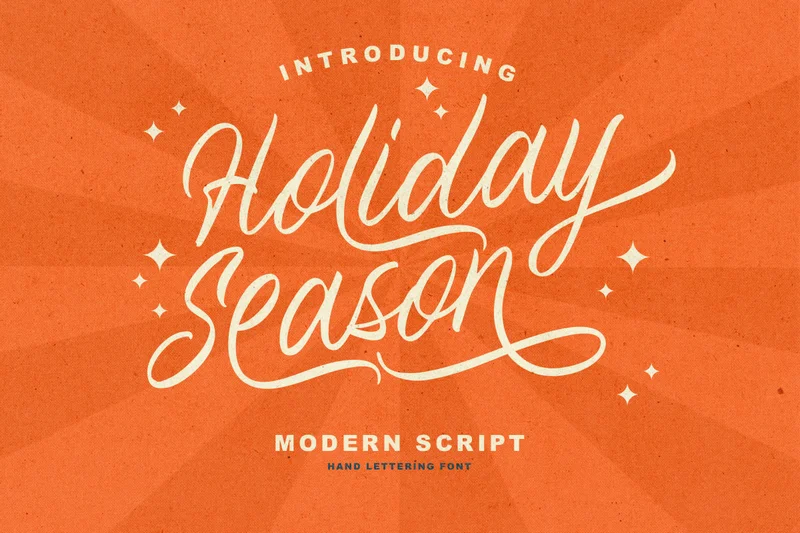
Holiday Season – Hand Lettering Font
Holiday Season is a hand lettering script font. You can use this font for every project. Suitable for branding logo and hand lettering. With bunch of alternates, you can make your lettering quotes more attractive and lovely. And you will get OTF/TTF file that you can install and use in any software designs especially Adobe Photoshop and Adobe Illustrator. This font also support multilingual, number and symbol.